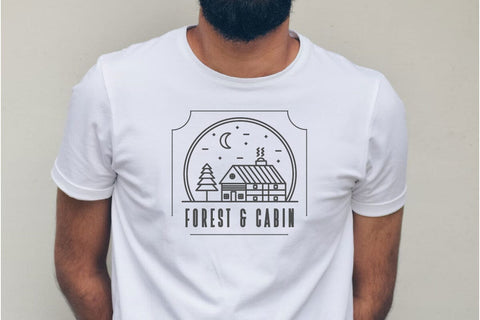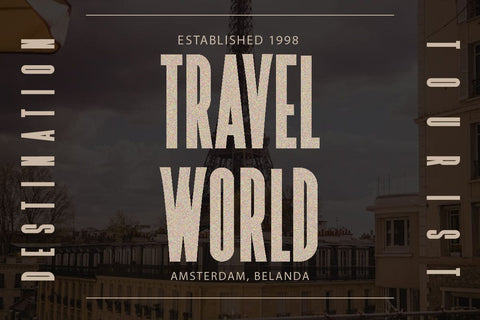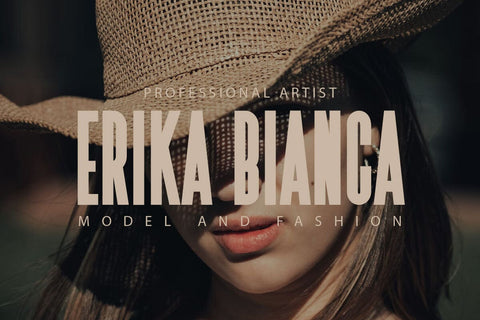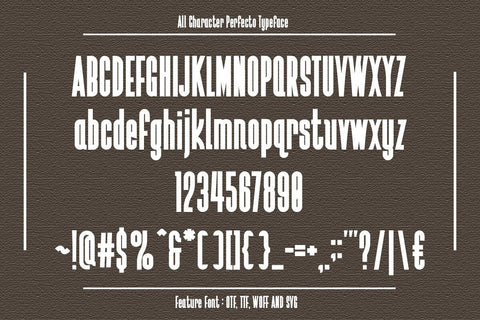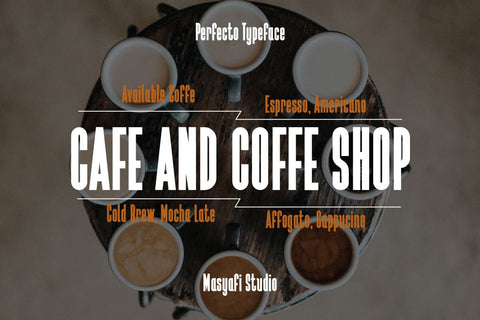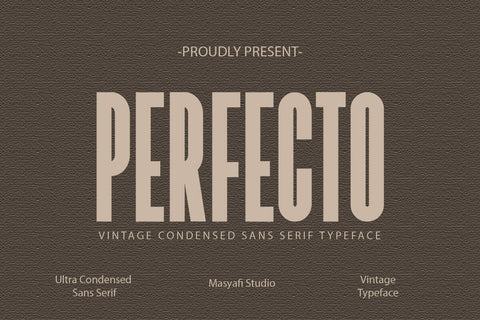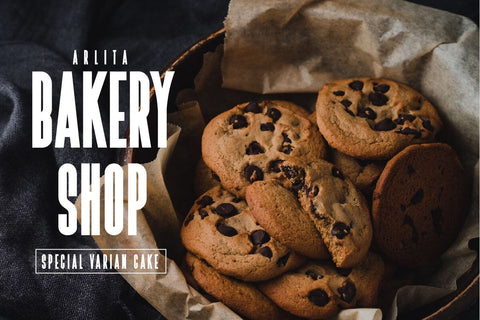
Perfecto - Sans Serif Typeface
Hi, Introducing Perfecto - Sans Serif Typeface
Sans Serif Typeface
with vintage, condensed and manly styles. This font is cool for headlines, overlays, t shirts, tote bags etc.